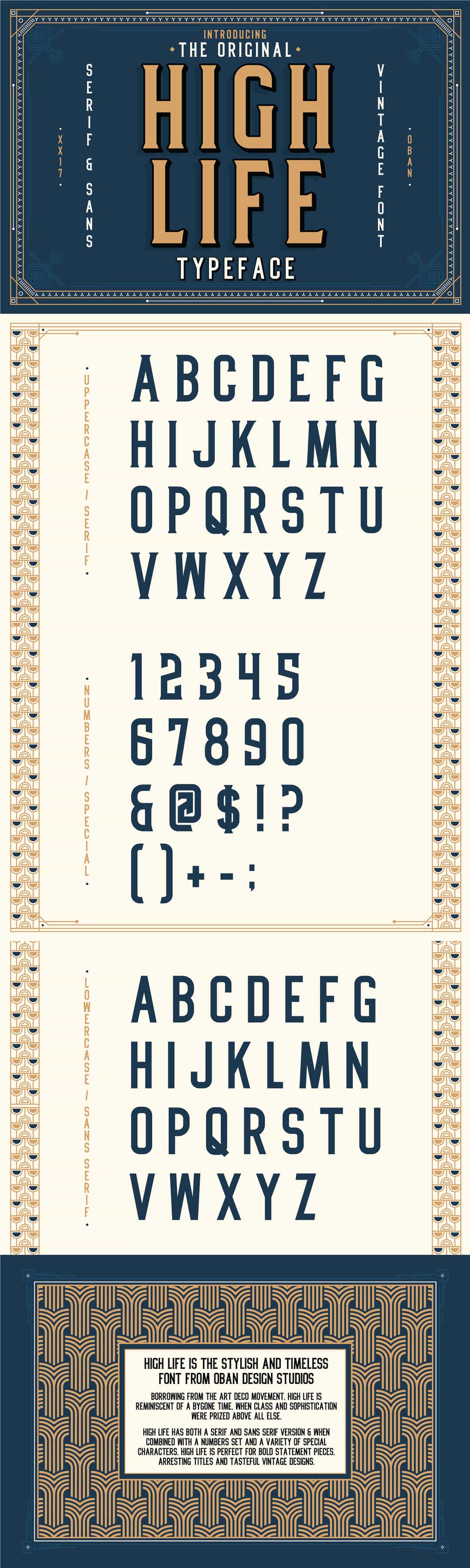
High Life Serif Font Free
High Life is a font created using Art Deco style provided by the Oban Design Studios. As it was characteristic for style which is more and more searched by people in a world full of informality, High Life comes in both serif and sans serif styles and works extremely well when combined with numbers or special characters as well as with bold titles.